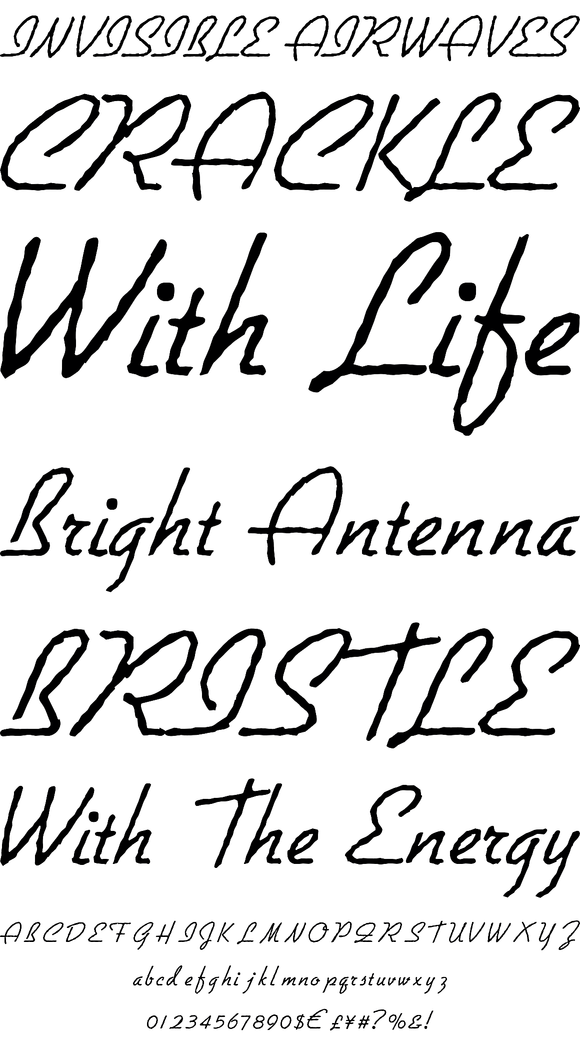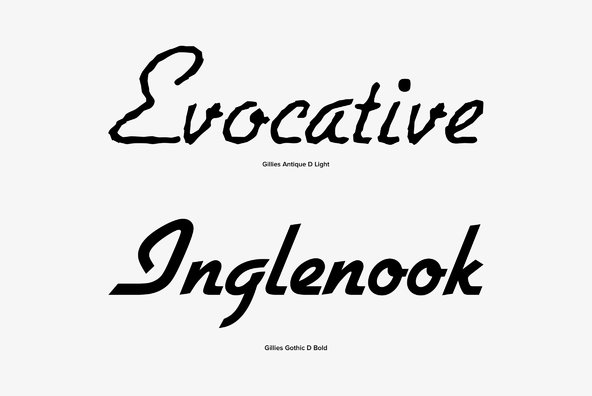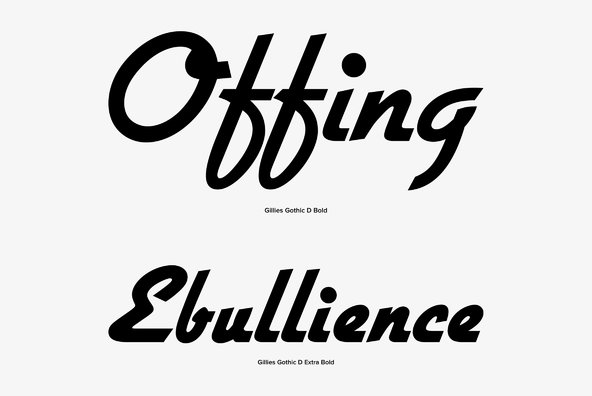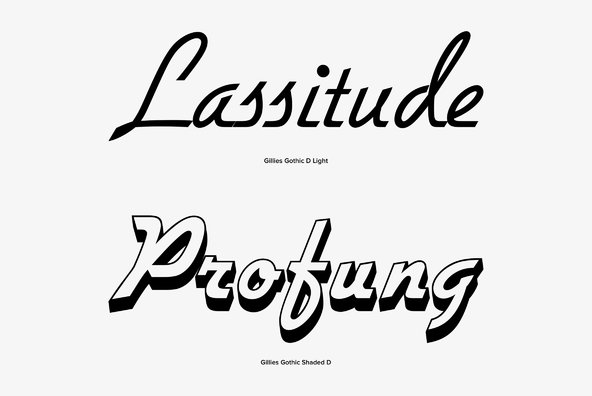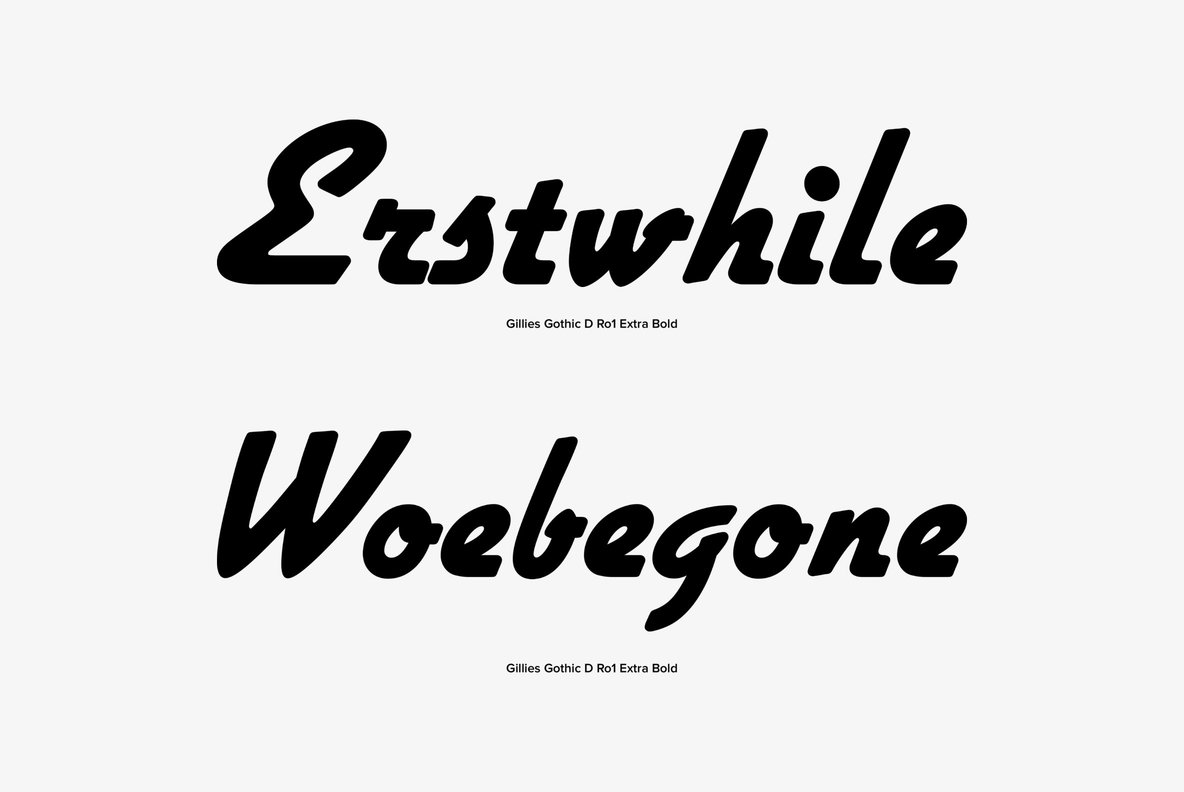
Designed by William S. Gillies in 1935, Gillies Gothic is a retro script font release by URW. Contains language support for West, East, Turkish, Baltic, and Romanian.